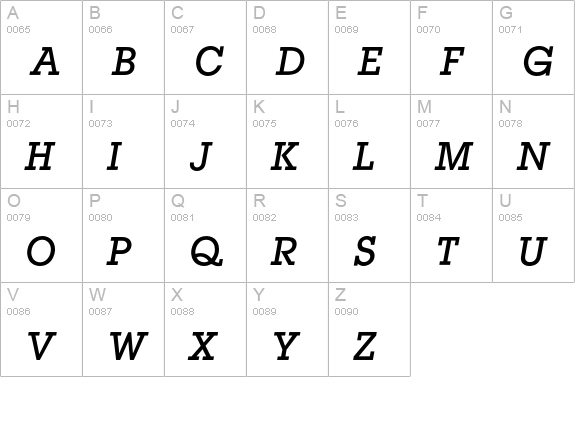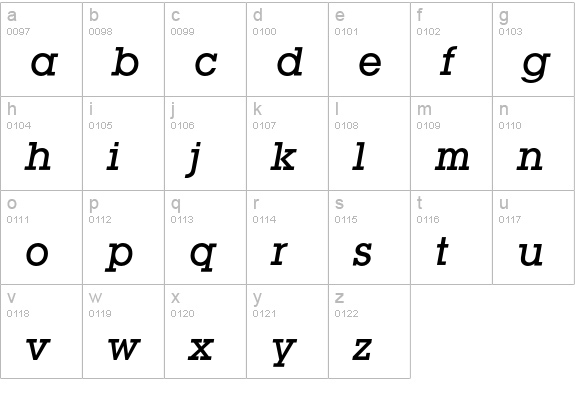
Lubalin Graph* Medium Oblique Font Details
Lubalin Graph* Medium Oblique is a balanced, medium-weight, italic variant in the Lubalin typeface family \xE2\x80\x94 well suited to sub-headlines, navigation, and balanced editorial work.
Lubalin Graph Medium Oblique font exudes a sense of modernity and sophistication with its sleek and stylish design. The slanted angles of the letters add a dynamic flair to any text, making it perfect for conveying a sense of movement and energy. This versatile typeface is ideal for a wide range of design projects, from branding to editorial layouts. What makes Lubalin Graph Medium Oblique font even more appealing is that it is available for free download at FontsMarket.com. This means you can easily access this premium font without any cost, allowing you to elevate your designs without breaking the bank. Whether you're working on a professional project or a personal creative endeavor, Lubalin Graph Medium Oblique font is a fantastic choice that will surely make your text stand out.